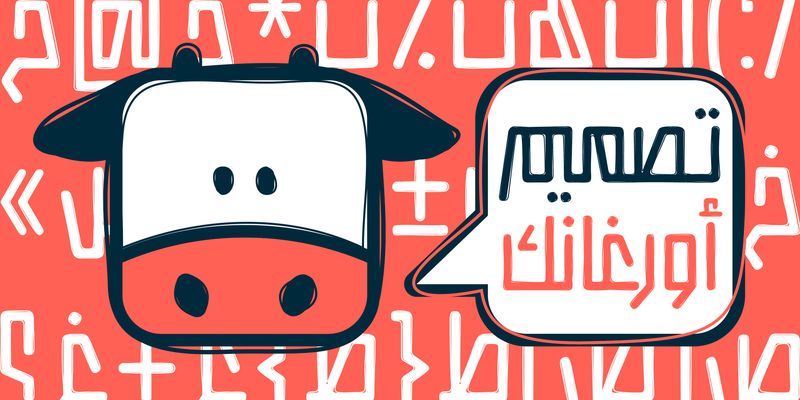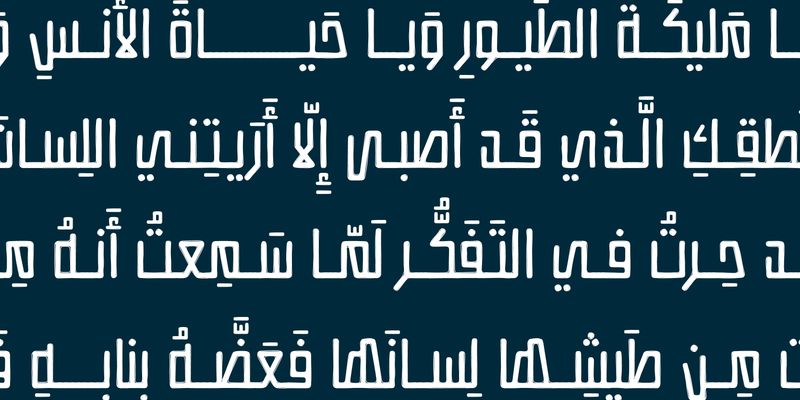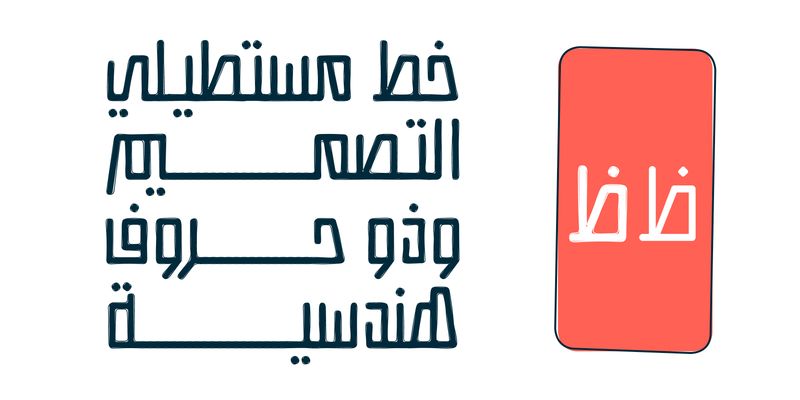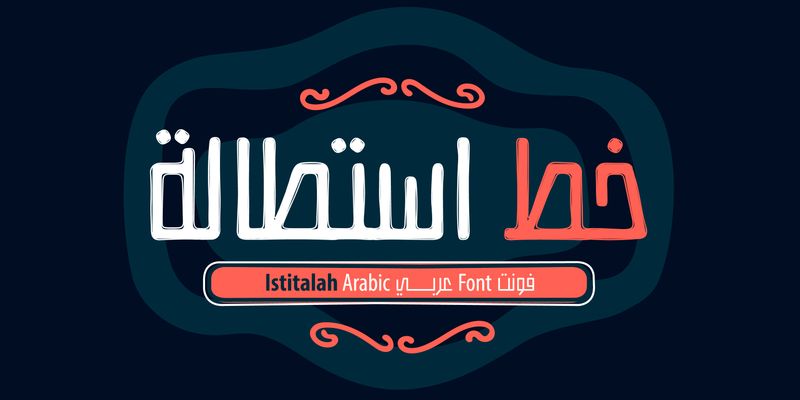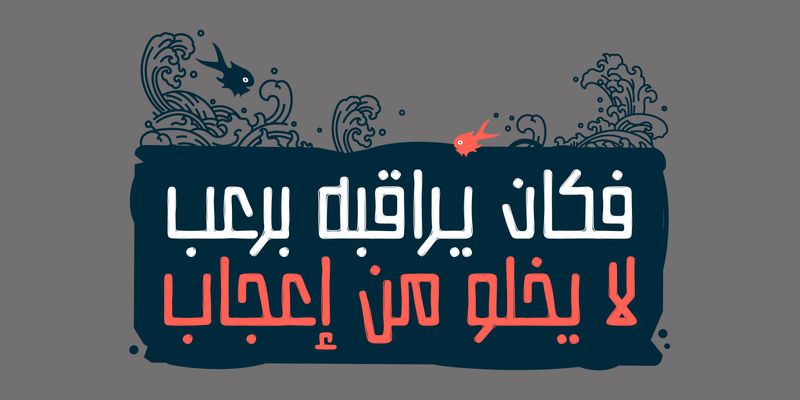
Istitalah (Arabic for Elongation) is an Arabic display font that showcases a distinctive rectangular letterform design. Its vertical, rigid, boxy structure, combined with a scribbled texture, makes it ideal for use in modern editorial layouts, posters, tech branding, and web or mobile applications. Istitalah comes in two styles: Basic and Scribbled, and is compatible with both Windows and macOS.